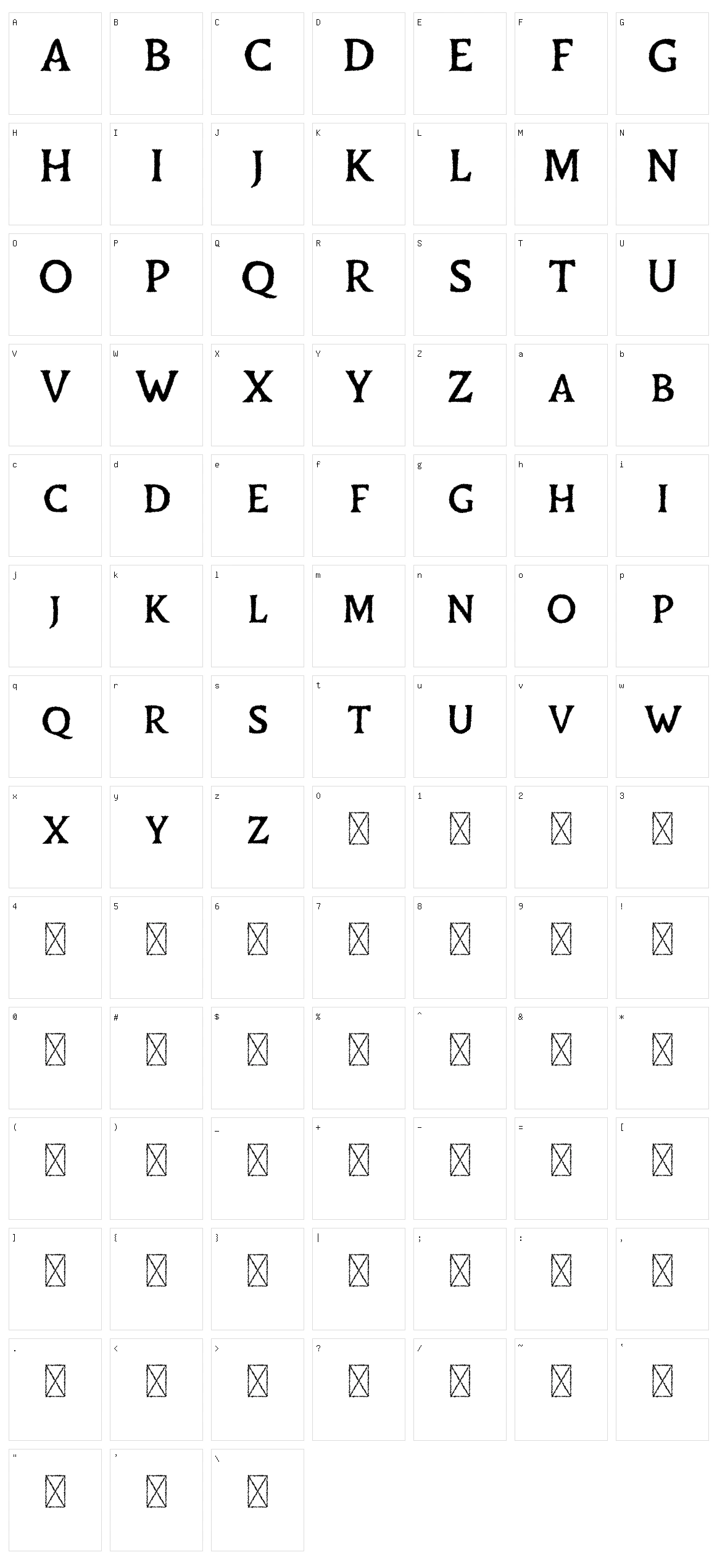
Introducing Duskey Font Family + Extras includes 4 Style Fonts. It can be used to create almost all types of design projects like print materials. Just use your imagination and some graphic design set in Extras, your project will become more alive and look great than ever with one of the Offlander Font.
You want to make a greeting card or a package design, or even a brand identity, craft design, any DIY project, book title, wedding font, pop vintage design, retro design or any purpose to make your art / design project look pretty and trendy? Feel free to play with all style of this font!